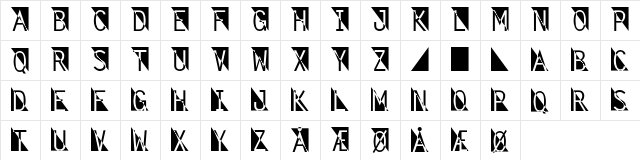
Fantomet2 Regular
Design Context for Fantomet2
Fantomet2 is a composed and adaptable typeface that performs quietly and consistently across a wide range of design contexts.